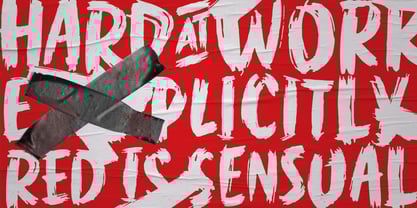
WORKSHOP Brush
by Posterizer KG
WORKSHOP Brush Font Family was designed by Lazar Dimitrijević and published by Posterizer KG. WORKSHOP Brush contains 1 styles.
WORKSHOP Brush is one more of three WORKSHOP handwritten fonts, created to imitate a manuscript written with brush. You can use the alternates and ligatures to give your design a realistic, hand painted look. If you find a single repeating glyph, you can change that by toggling between Stylistic Alternates. There are Cyrillic glyphs and few Stains in the same style. WORKSHOP Brush is the perfect choice for those who prefer more expressive typography.